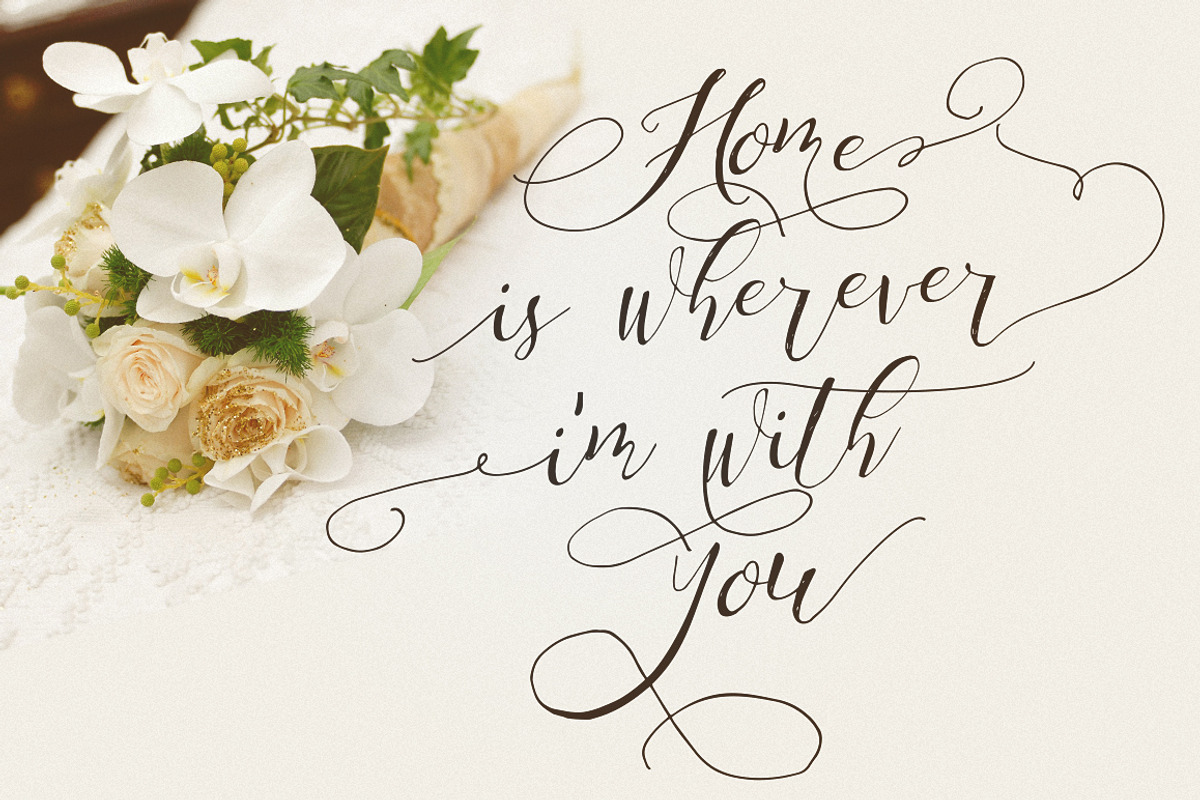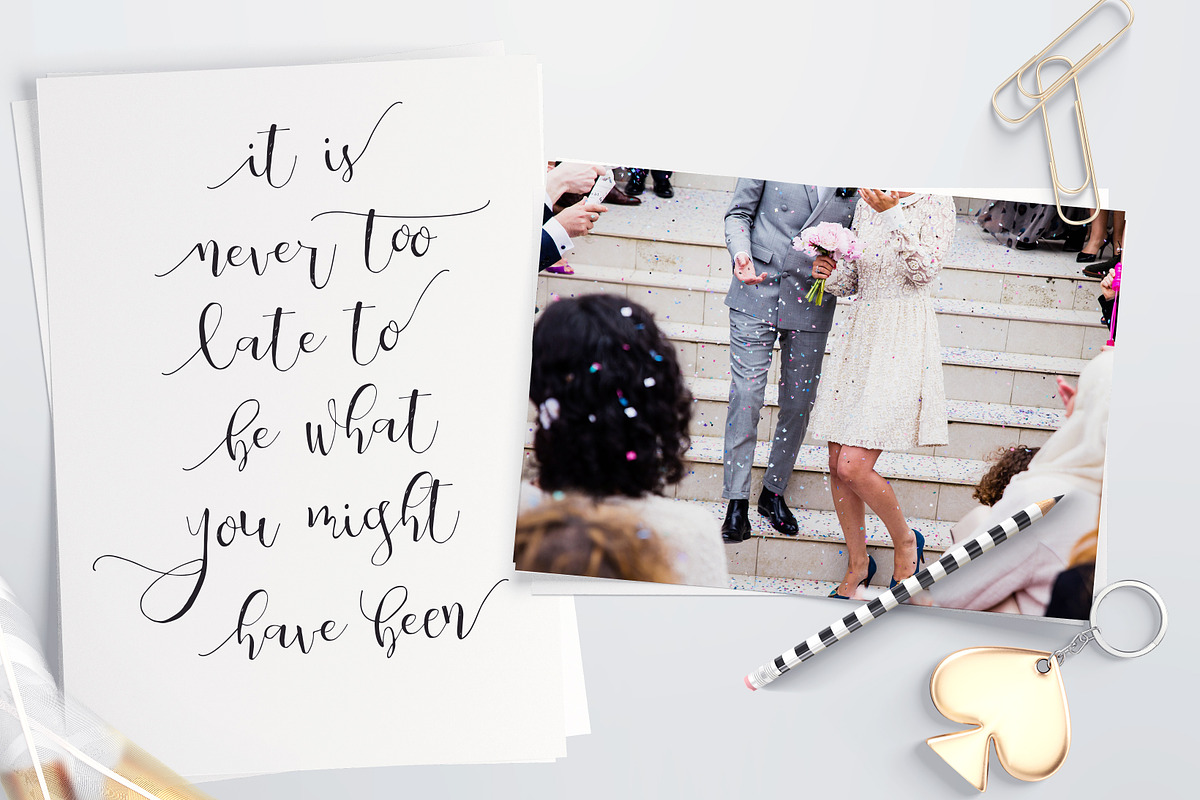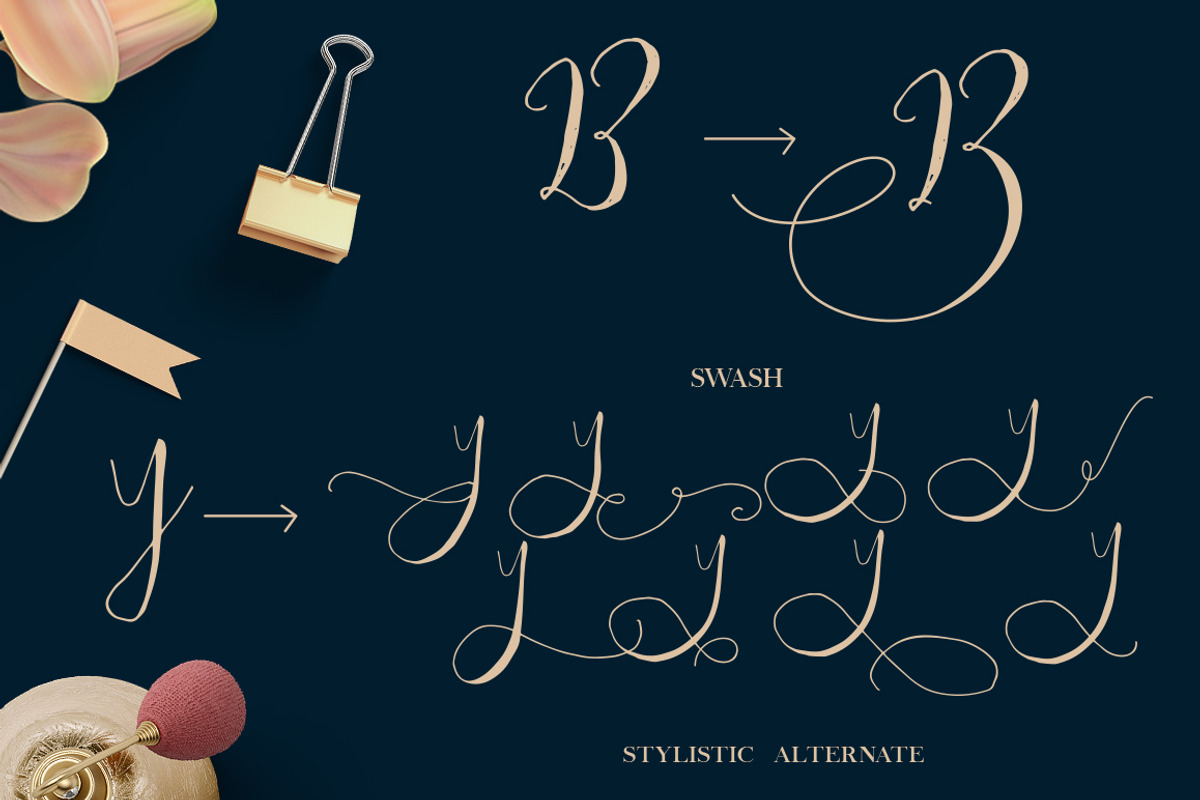
Be Grateful Script
Be Grateful Script, is a calligraphy wavy, modern and clasik, perfect for your next design, such as logos, wedding, printed quotes, invitations, cards, product packaging, headers and anything else about your imagination.
Be Grateful Script allows you to create custom dynamic text. you can access by turning on; Stylistic Set, Stylistic alternate, ligature, unique ligature, Initial and terminal as well as in Photoshop, Adobe Illustrator, Adobe InDesign or through a panel of glyphs such as Adobe Illustrator, Photoshop CC, Let's switch from the reguler character into character alternative to get the text with the layout of your dreams. Be Grateful Script also includes glyphs, punctuation, numbers, and multilingual.
Be Grateful Script features 414 glyphs and has given PUA unicode (specially coded fonts), with tons of alternate characters. The pack can be accessed in full by any crafter or designer, without the requirement for extra design software, COMPATIBLE WITH SILHOUETTE & CRICUT DESIGN SPACE
The features is:
- Standard ligatures
- initial and terminal
- Stylistic alternates
- Bonus Ornaments Swash